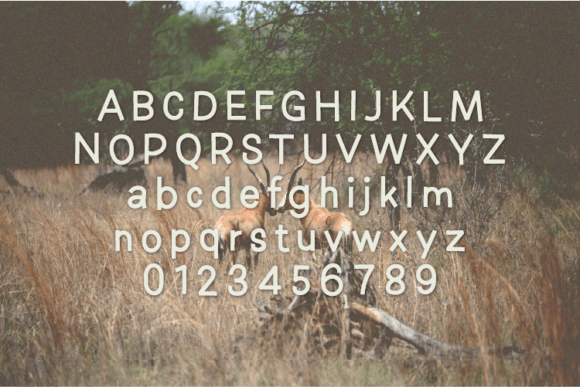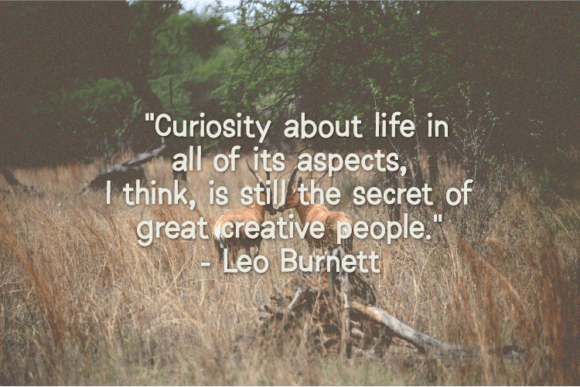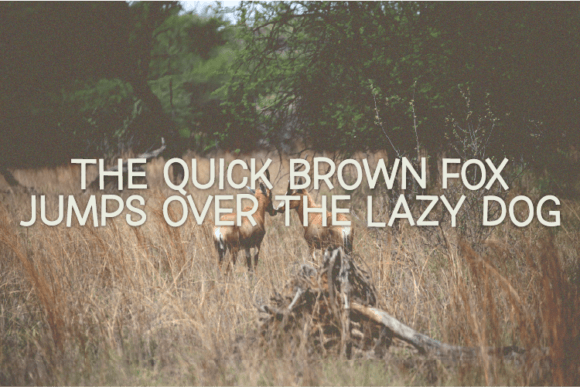
Introduction to Rubbing Font
Have you ever been brainstorming a creative project, and the perfect font just slipped through your fingers? For designers, finding the right font can make or break a project’s overall aesthetic. That’s why we’re excited to introduce you to the Rubbing Font – a unique sans serif font that’s perfect for quotes, notes, T-shirts, and many more.
The Rubbing Font is a high-quality design resource that’s waiting to elevate your creative projects. With its clean and modern look, it’s a versatile font that can be used in a variety of contexts. Plus, its transparent background makes it easy to pair with any design element. Whether you’re a seasoned designer or just starting out, the Rubbing Font is a valuable addition to your font collection.
Key Features of Rubbing Font
- High-quality design resource with a unique, distressed look, perfect for creative projects.
- Transparent background option allows for easy layering and customization in your design project.
- Unique, hand-drawn style with a distressed, vintage look adds a touch of elegance to any design project.
Honest Review: Rubbing Font
As a designer, I’m always on the lookout for high-quality design resources to elevate my creative projects. Recently, I had the chance to work with the Rubbing Font, and I must say, it’s a solid addition to any design arsenal.
- Unique aesthetic: The Rubbing Font boasts a distinctive, hand-drawn look that adds a touch of personality to any design.
- High-quality glyphs: The font’s characters are crisp and well-defined, making it perfect for both digital and print projects.
- Limited font weights: The Rubbing Font only comes in a few weights, which may limit its versatility in certain design contexts.
- Transparent background required: To get the most out of this font, you’ll need to use a transparent background, which can be a bit of a hassle for some designers.
Overall, the Rubbing Font is a solid choice for designers looking for a unique and high-quality font to add to their creative projects. While it may have some limitations, its unique aesthetic and high-quality glyphs make it a worthwhile addition to any design library.
Introduction to Rubbing Font
Rubbing Font is a unique and versatile design resource that can add a touch of elegance to your creative project. This high-quality font is perfect for designers who want to create visually appealing and professional-looking materials.
Tips for Getting the Most Out of Rubbing Font
To get the most out of Rubbing Font, try using it on a transparent background to create a beautiful and subtle effect. You can also experiment with different font sizes and colors to create a unique and eye-catching design.
Rubbing Font is perfect for designers who want to create wedding invitations, business cards, and other professional-looking materials. It’s also great for creating quotes, posters, and other visual materials that require a touch of elegance and sophistication.
By incorporating Rubbing Font into your design workflow, you can elevate your creative project to the next level. Its versatility and high-quality design make it an excellent addition to any design arsenal. We encourage you to download Rubbing Font and experience its benefits for yourself. Whether you’re a seasoned designer or just starting out, this font is sure to inspire and enhance your creative endeavors.